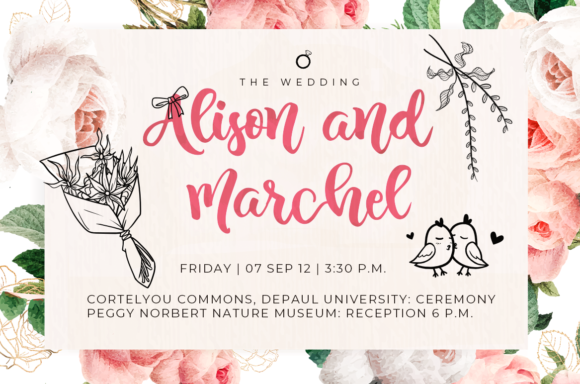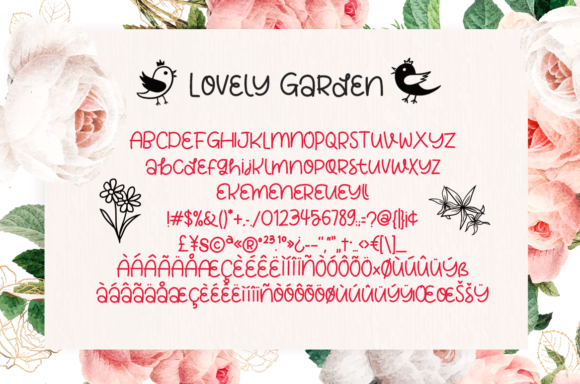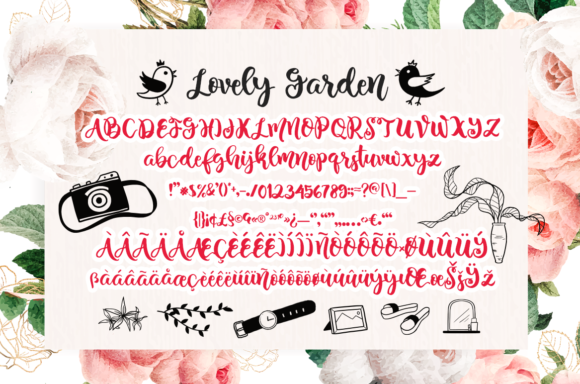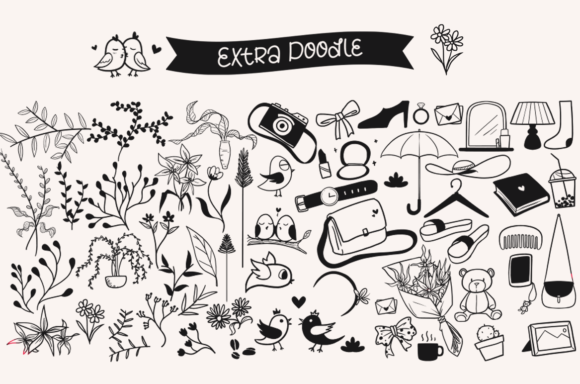
Lovely Garden Font
About Lovely Garden Font
Lovely Garden is a lovely and delicate duo handwritten font with extra doodle. Its distinct and refined letters make this font a masterpiece. Fall in love with its incredibly versatile style and use it to create spectacular designs!